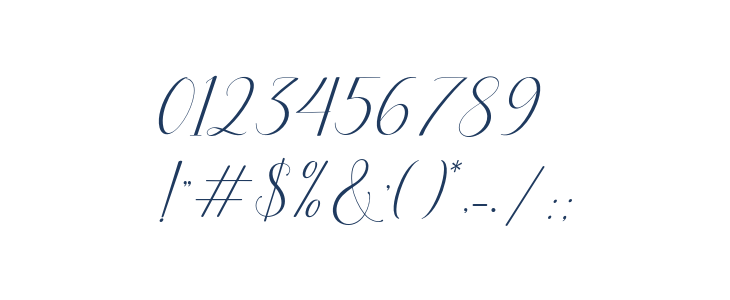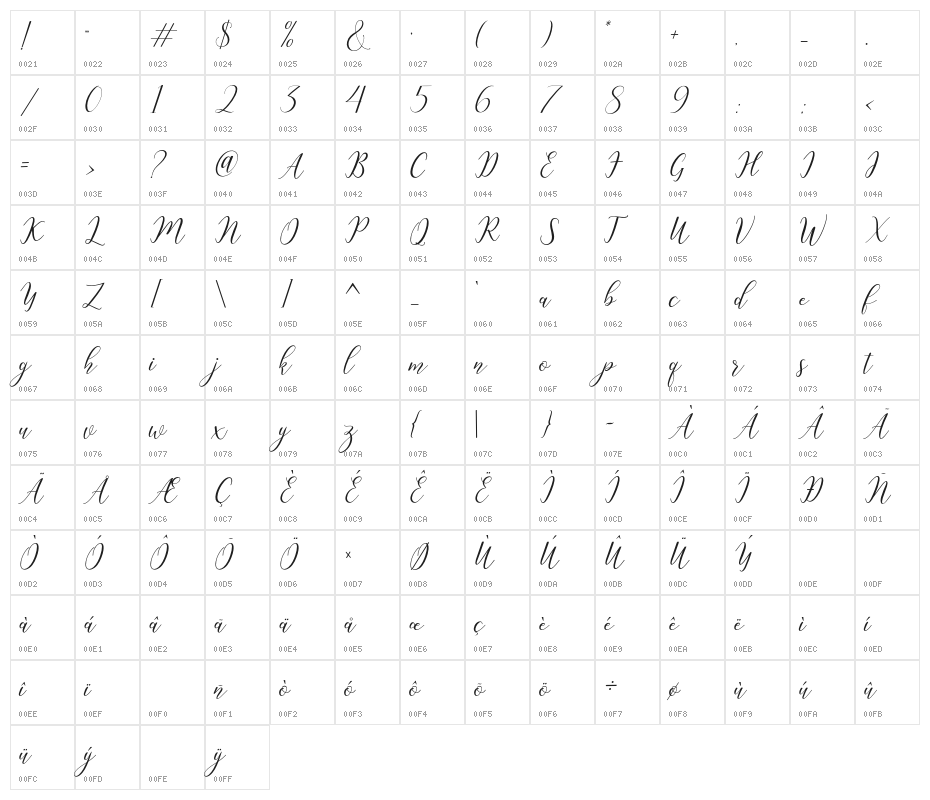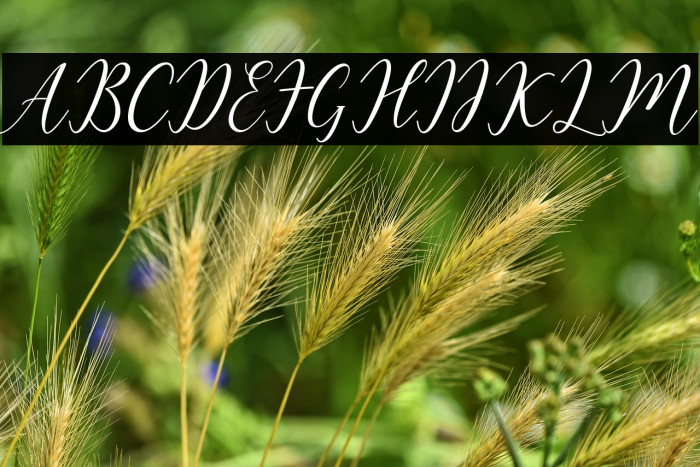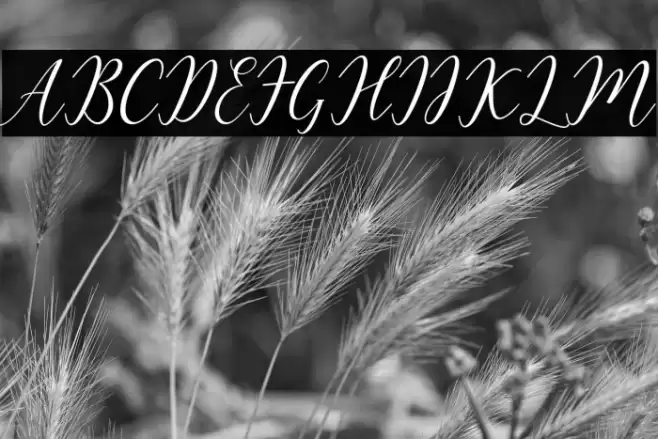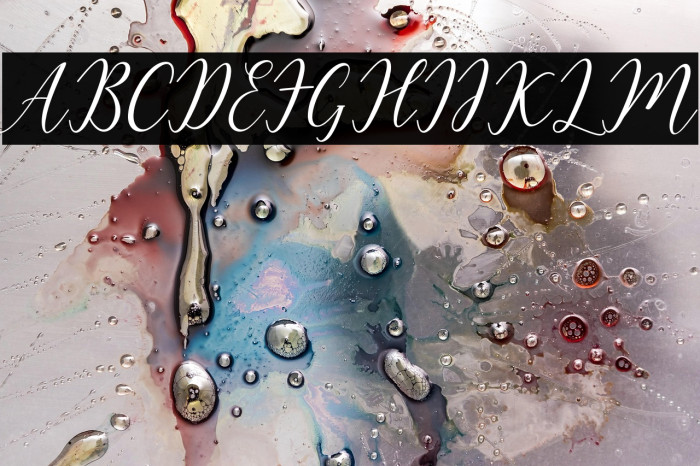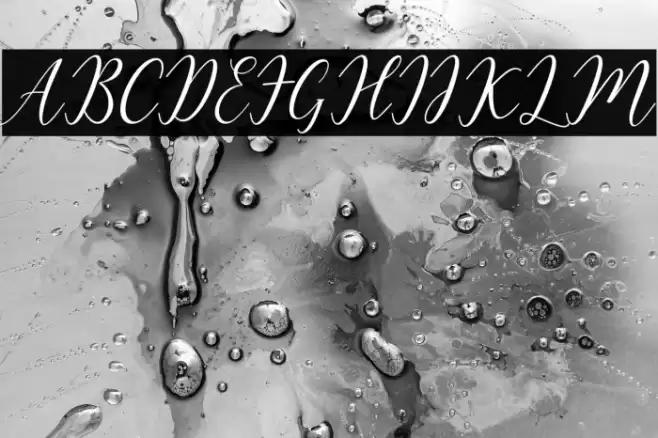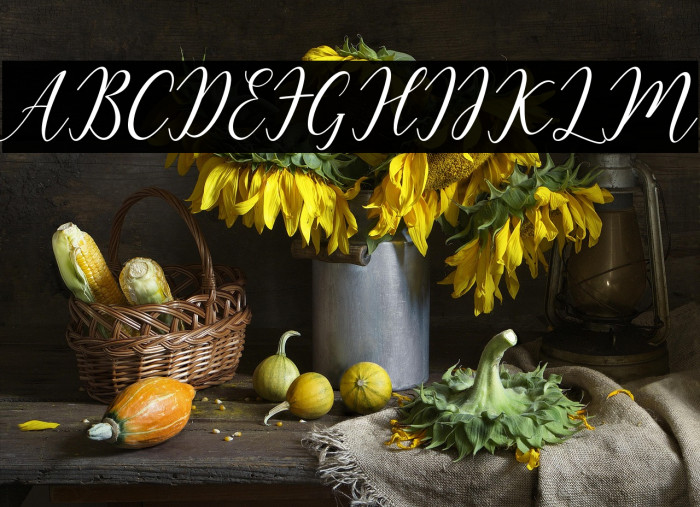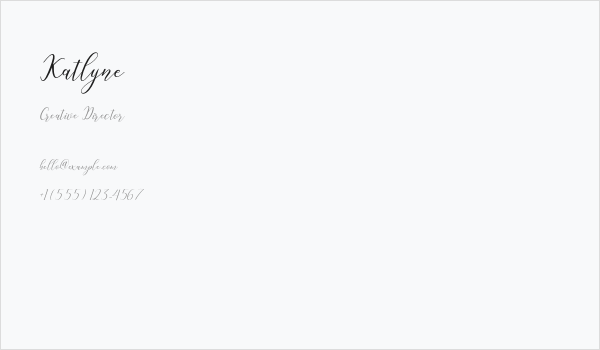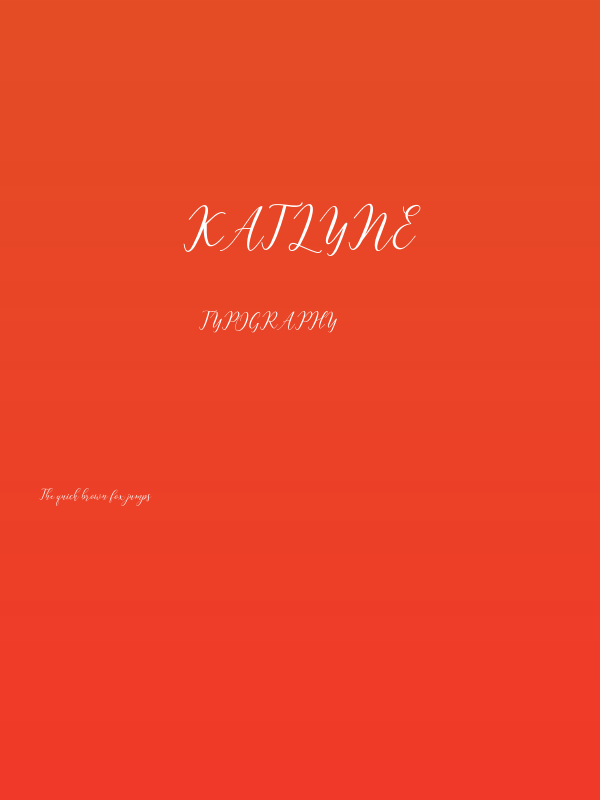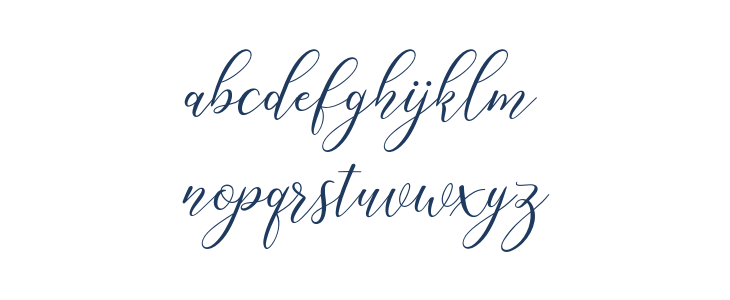
Katlyne Font
Katlyne Description
This elegant script font features flowing, cursive letterforms with a sophisticated and graceful appearance. The uppercase letters are tall and slightly slanted, with delicate loops and flourishes that add a touch of refinement. The lowercase letters maintain a consistent style, with smooth connections and a fluid motion that enhances readability. The numerals are designed with a similar elegance, featuring curved lines and subtle embellishments. Special characters are thoughtfully crafted to match the overall aesthetic, making this font suitable for a variety of decorative purposes.
Overall StyleElegant, Decorative
Use CaseLogos, Invitations, Decorative text
Proposed ProjectsIdeal for wedding invitations, elegant branding, greeting cards, and high-end product packaging.